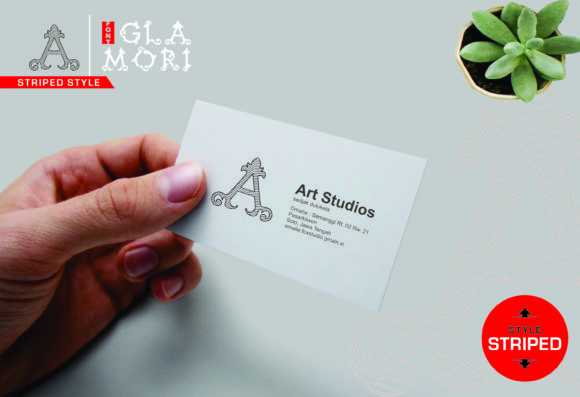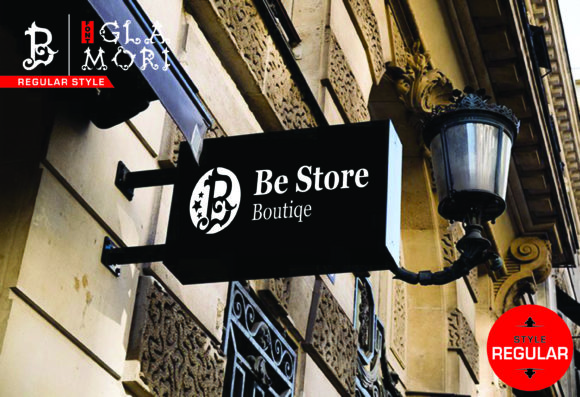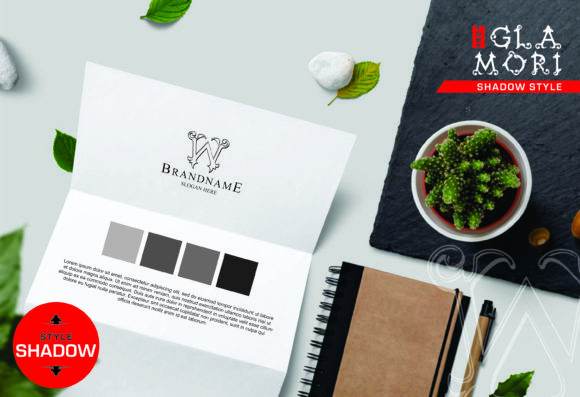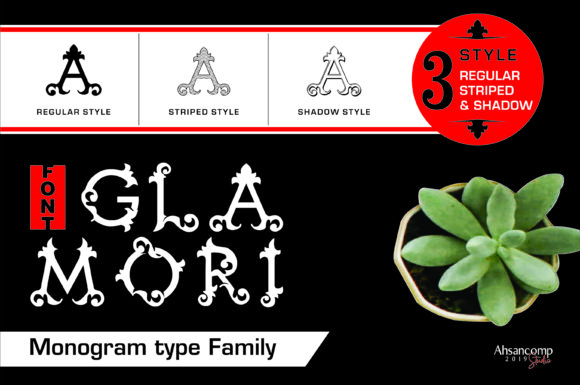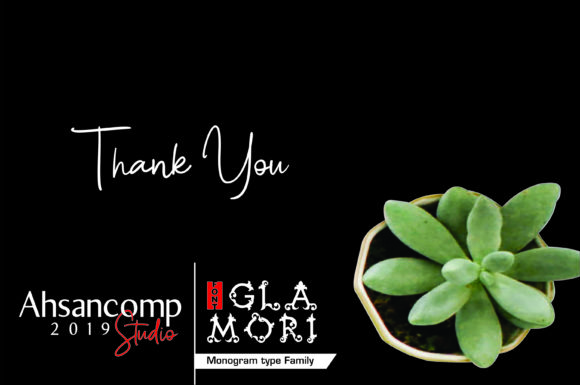
Glamori Font: Elevate Your Designs with Elegance and Versatility
Are you a designer or crafter looking for a font that can add a touch of glamour and sophistication to your projects? Look no further than the Glamori Font, an amazing monogram family that is sure to elevate your designs. In this article, we’ll take a closer look at the Glamori Font, its features, and how you can use it to create stunning and unique designs.
What is Glamori Font?
The Glamori Font is a monogram family that consists of three variations: regular, striped, and shadow. This versatile font is perfect for designers and crafters who want to add a touch of elegance and glamour to their projects. Whether you’re working on a logo, branding, or a craft project, the Glamori Font is sure to impress.
Features of Glamori Font
The Glamori Font comes with three unique variations, each with its own distinct style:
• Regular: The regular style is perfect for creating elegant and sophisticated designs. It’s ideal for logos, headings, and titles.
• Striped: The striped style adds a touch of playfulness and whimsy to your designs. It’s perfect for creating eye-catching graphics and designs.
• Shadow: The shadow style adds a touch of drama and glamour to your designs. It’s ideal for creating stunning and eye-catching effects.
Combining Styles for Unique Designs
One of the best features of the Glamori Font is that all three styles can be combined to create unique and stunning designs. For example, you can use the regular style as a base and add the striped or shadow style to create a layered effect. This versatility makes the Glamori Font perfect for designers and crafters who want to push the boundaries of their creativity.
Uses of Glamori Font
The Glamori Font is perfect for a wide range of projects, including:
• Logo Design: Use the Glamori Font to create stunning and memorable logos for your clients or business.
• Branding: The Glamori Font is perfect for creating consistent branding across various platforms, including business cards, letterheads, and social media.
• Crafting: Use the Glamori Font to add a touch of elegance and sophistication to your craft projects, such as scrapbooking, card making, and DIY projects.
• Graphic Design: The Glamori Font is perfect for creating stunning graphics, including posters, flyers, and brochures.
Tips for Using Glamori Font
In conclusion, the Glamori Font is an amazing monogram family that is perfect for designers and crafters who want to add a touch of elegance and sophistication to their projects. With its three unique variations and versatility, the Glamori Font is sure to elevate your designs and help you create stunning and unique graphics. Whether you’re working on a logo, branding, or a craft project, the Glamori Font is a great choice.